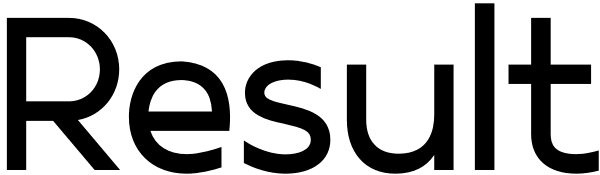
Result
Result, a grotesque sans-serif, is a typeface well-suited for multiple purposes. It’s easy to find a suitable weight of Result for all kinds of needs, being very suitable for packaging and identity design, magazine and newspaper headlines, signage...